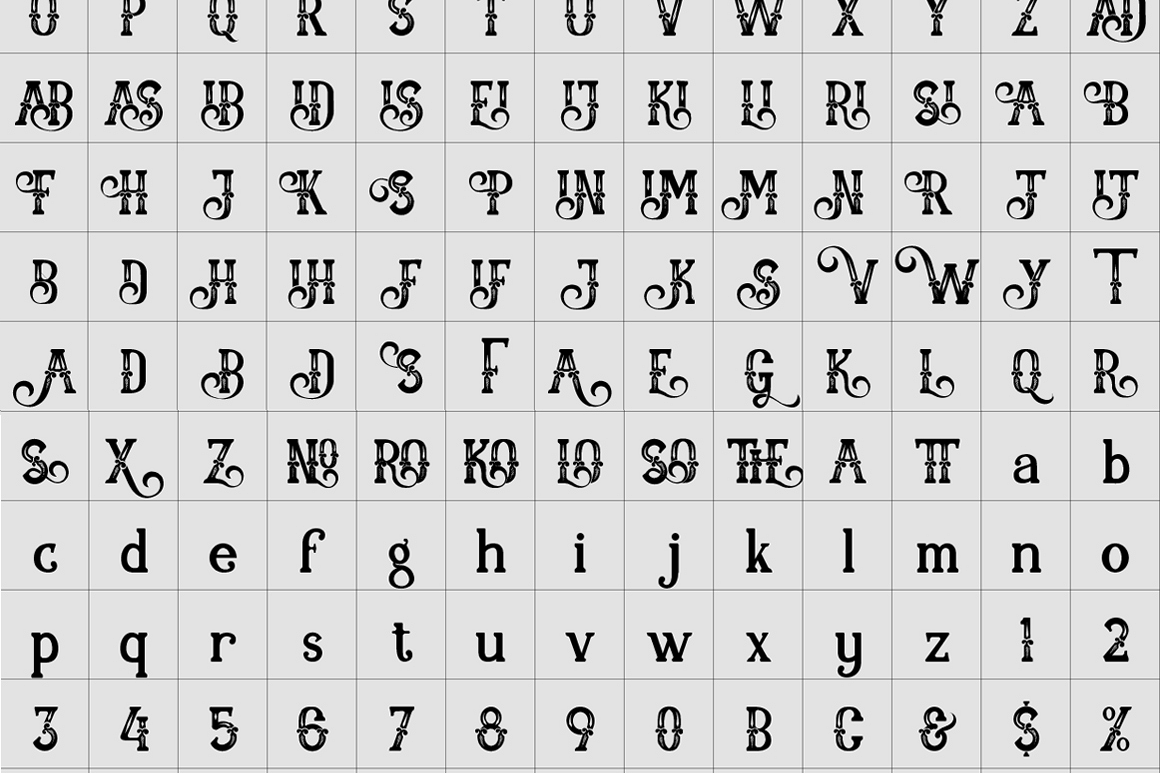
ALITIDE Typeface
ALITIDESTAMP.
ALITIDE
Introducing western style display typeface it's a ALITIDE. Allcaps font with modern western style. OpenType features with Stylistic Alternates. To access the alternat glyphs, you need a program that supports OpenType features such as Adobe Illustrator CS and Adobe Indesign. You can use this font for various purposes. such as logo, t-shirt, posters, lable, letterhead, book cover and etc.